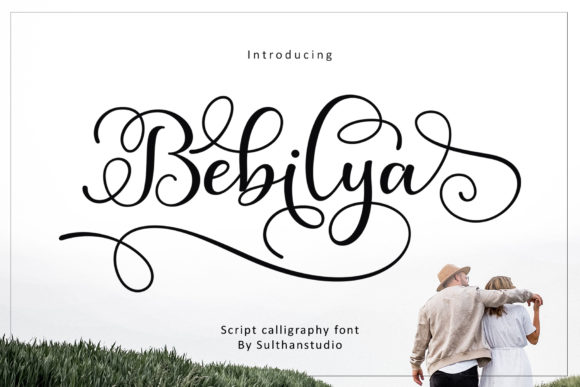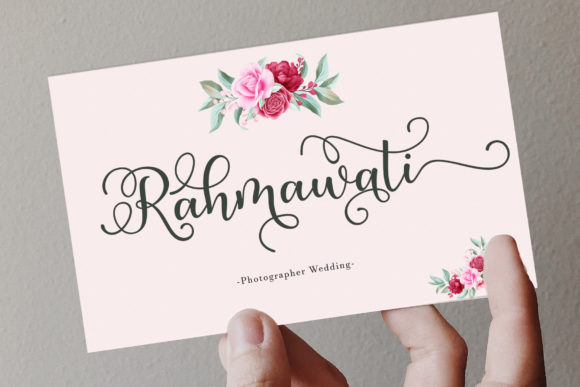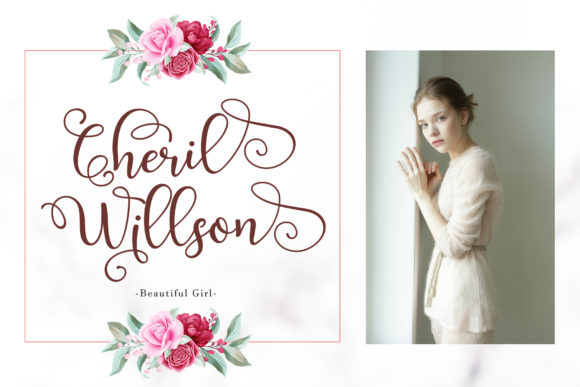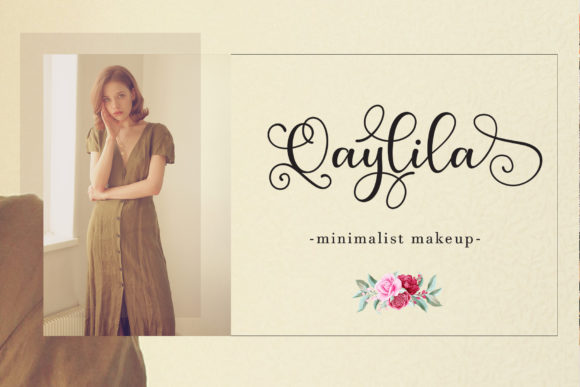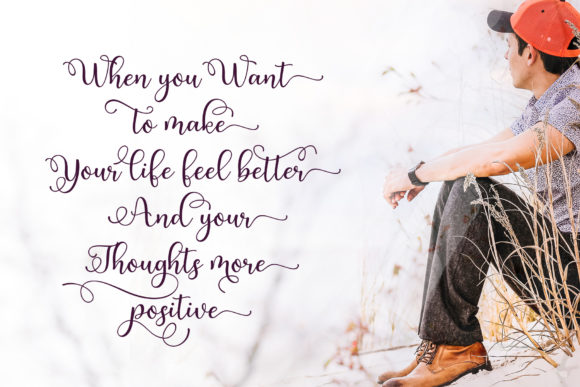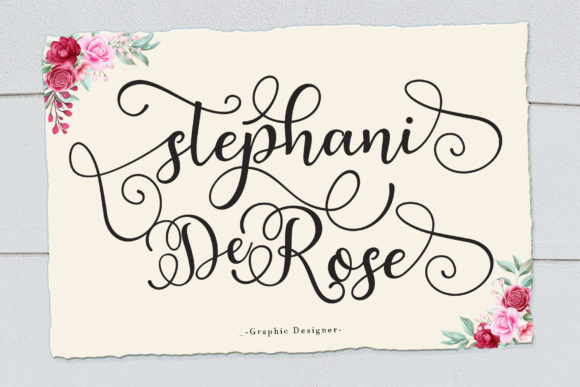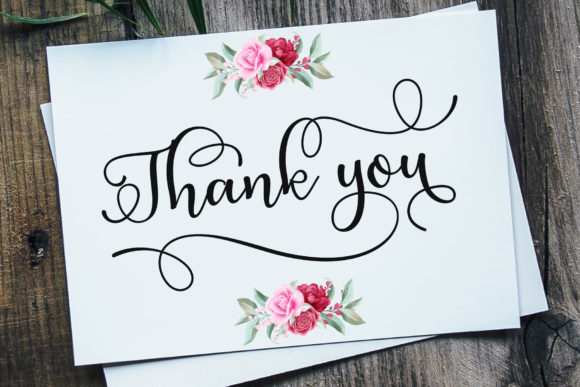
Bebilya Font
About Bebilya Font
Bebilya is a lovely and playful handwritten font. It will be the right choice for projects like wedding invitations, post cards, quote designs and much more.